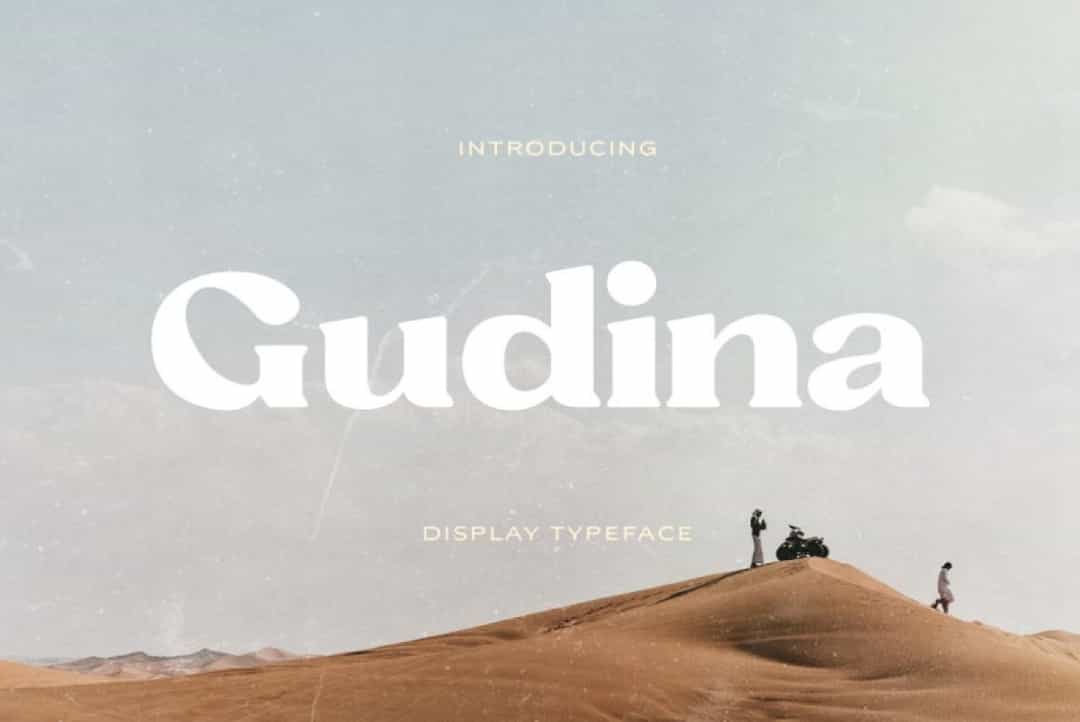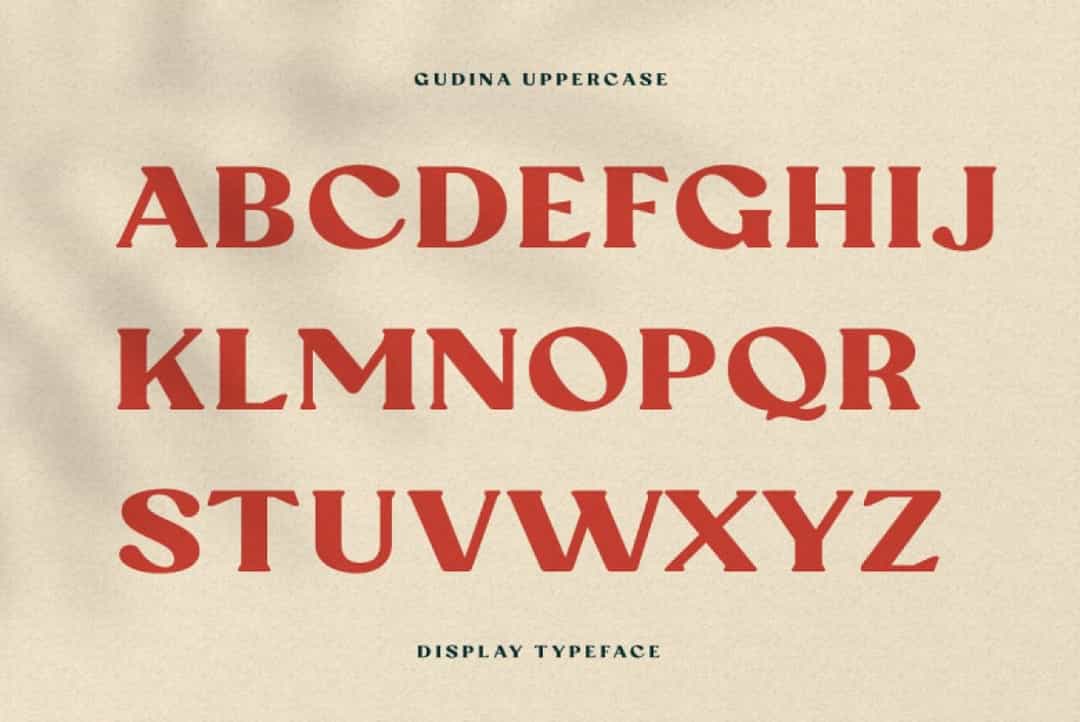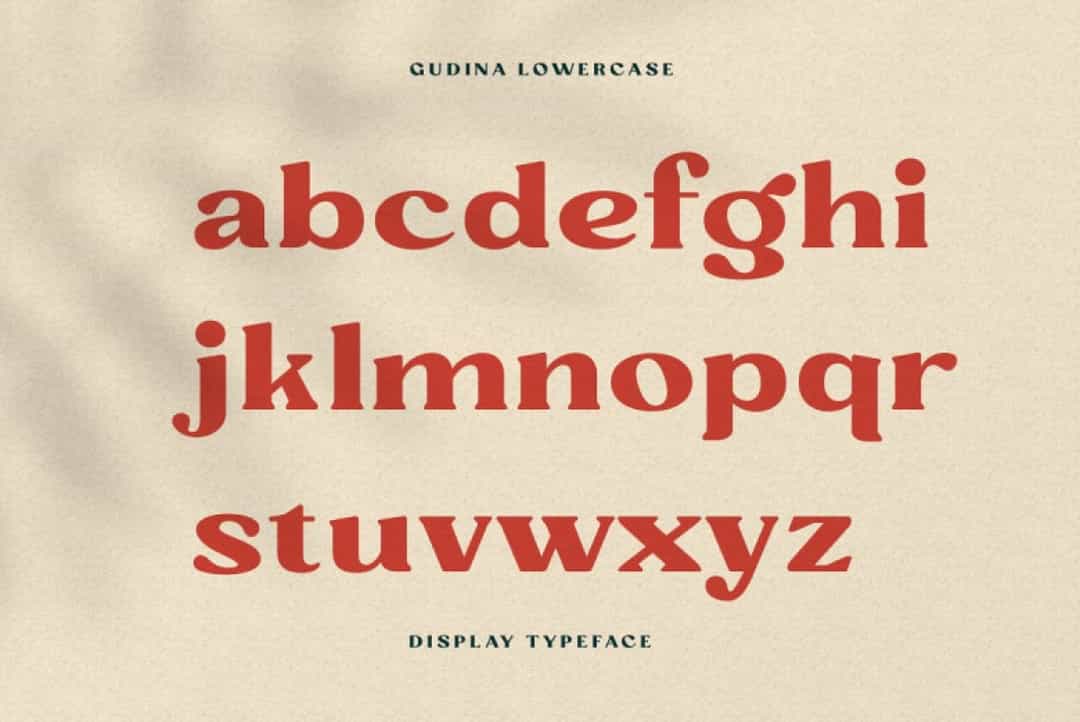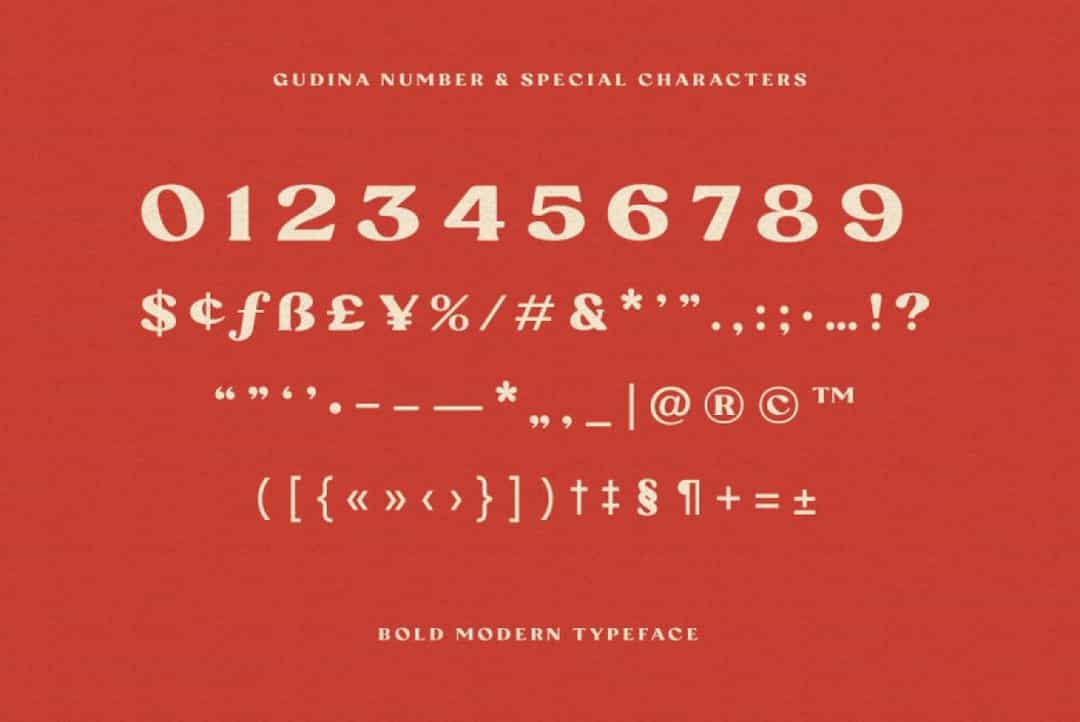
Discover Gudina Font, part of the Serif Display collection—a versatile and unique font perfect for adding a personal touch to your projects. Download it for free and enjoy crafting designs with style, from invitations to social media posts. This font is available exclusively for personal use, giving you the freedom to create without limits. Unlock your creativity with Gudina Font today!
Gudina is an eye-catching serif font available in multiple sizes and layouts that adds instant sophistication to any design – be it branding or advertising packaging logo design headlines. This dynamic font can transform plain text into works of art!